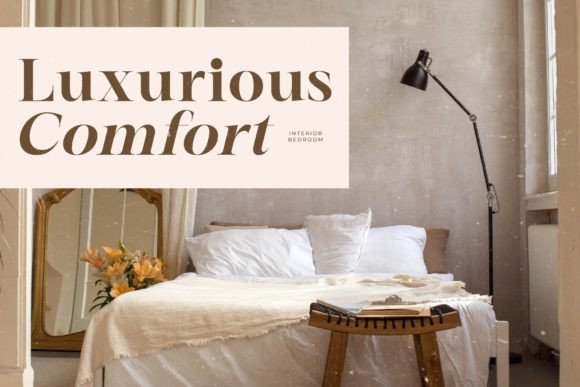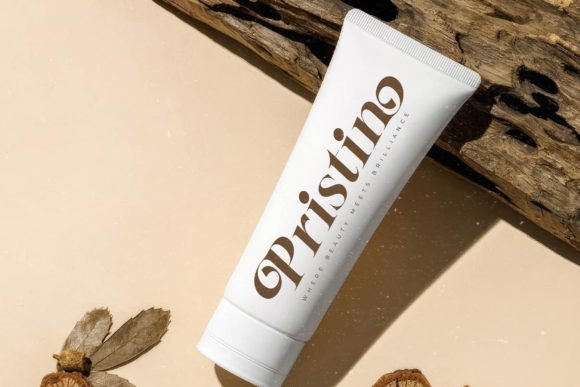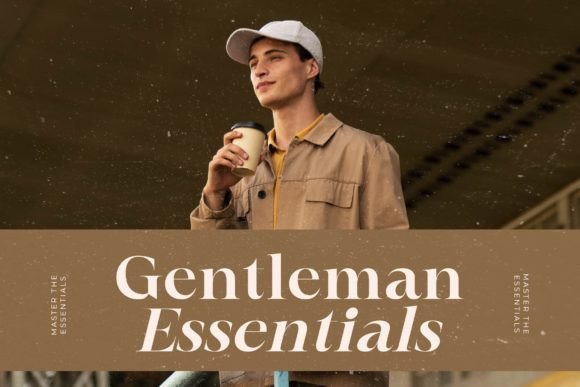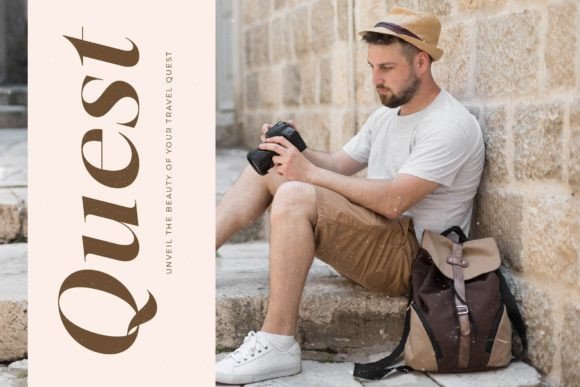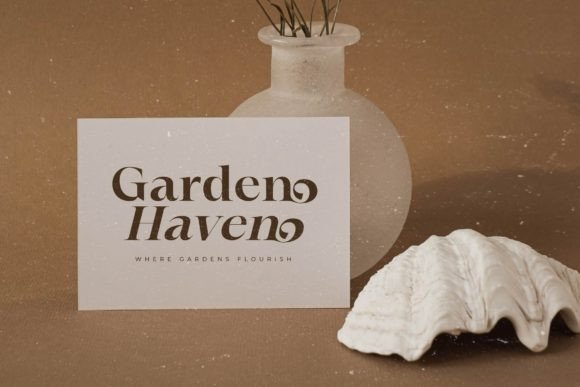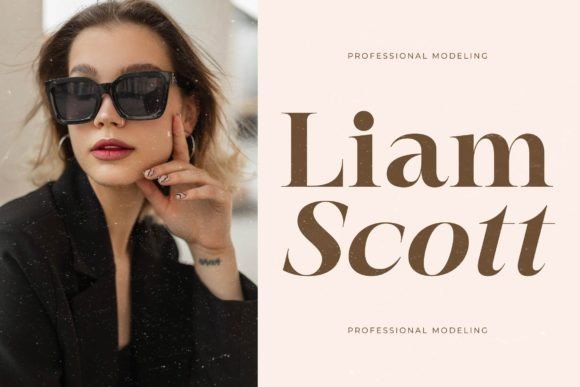
Introduction to Elegan Blend Font Font
Fonts play a crucial role in design, and the Elegan Blend Font font is a typeface that brings both character and versatility to any project. Whether you’re working on a branding project, a website, or a print design, the Elegan Blend Font font offers a unique style that can elevate your work.
Elegan Blend is a modern and stylish serif font that marries clean lines with subtle curves for a contemporary look.
Perfect for editorial designs, luxury branding, and web typography, its sophisticated presence enhances every composition Choose Elegan Blend for a touch of modern elegance in your creative projects.
Key Features of Elegan Blend Font Font
Why Choose Elegan Blend Font Font?
The Elegan Blend Font font is more than just a typeface – it’s a design tool that helps you communicate your message with style and clarity. Its unique character set and versatile design make it suitable for a wide range of applications, from elegant invitations to bold headlines.
With its carefully crafted letterforms and balanced proportions, the Elegan Blend Font font ensures readability and visual appeal across all mediums.
What makes Elegan Blend Font font special?
The Elegan Blend Font font stands out with its unique design, exceptional readability, and versatility across various design applications.